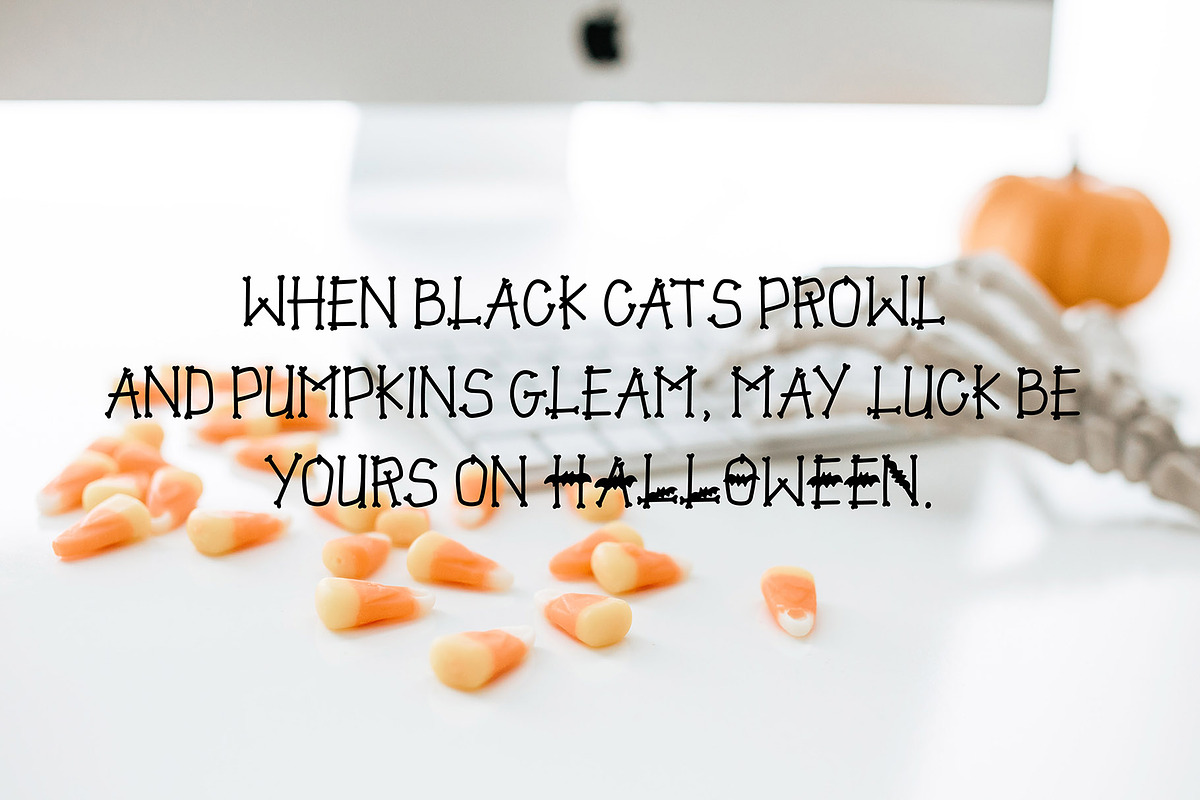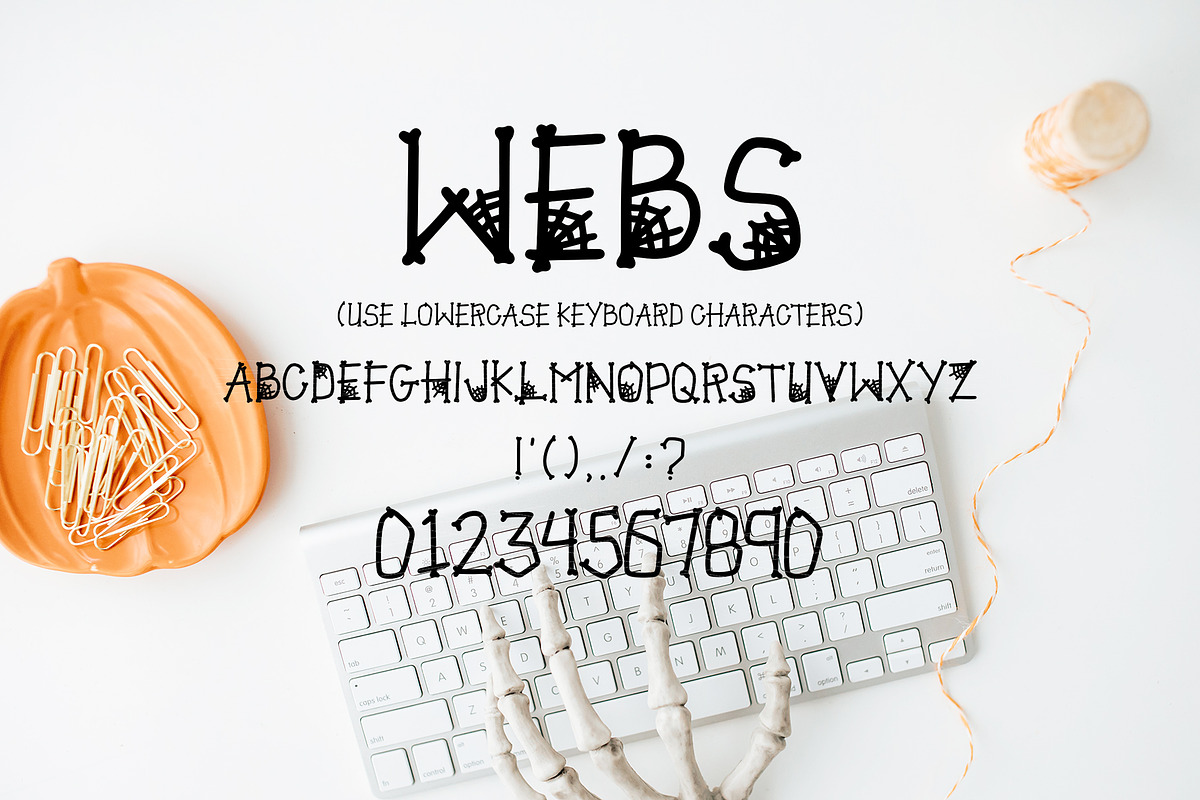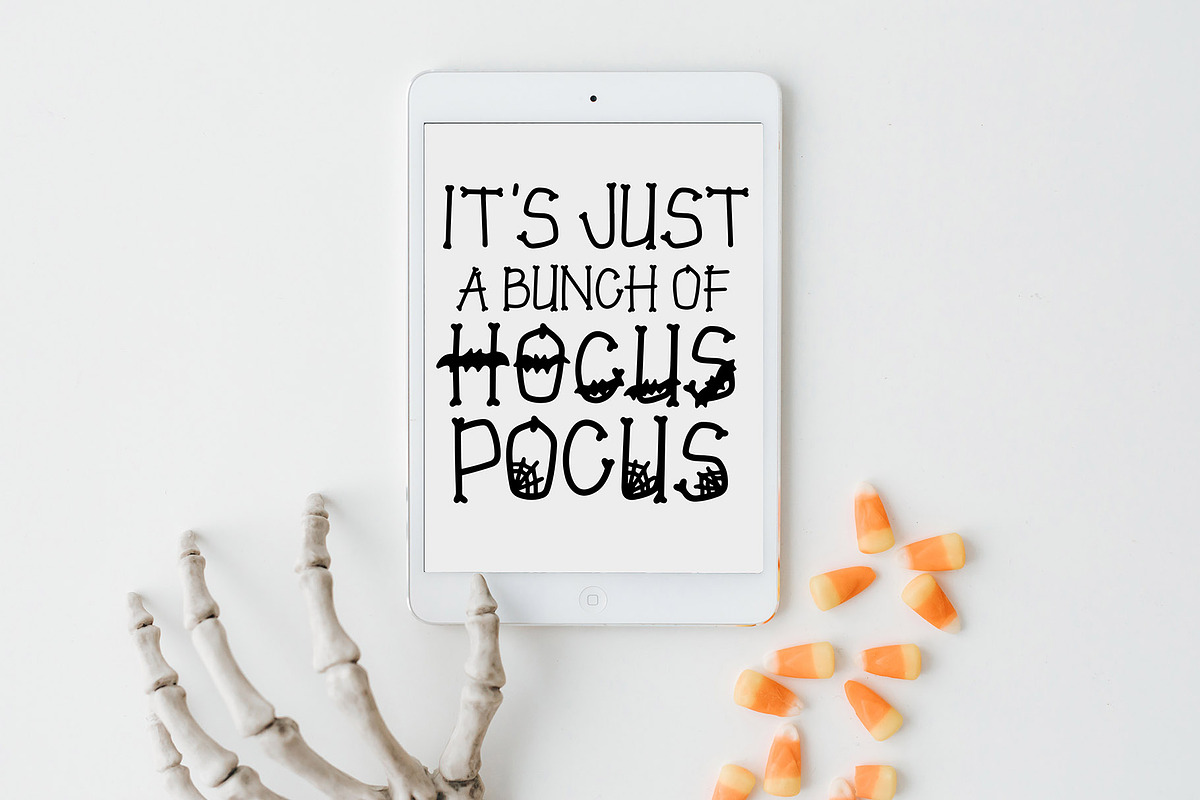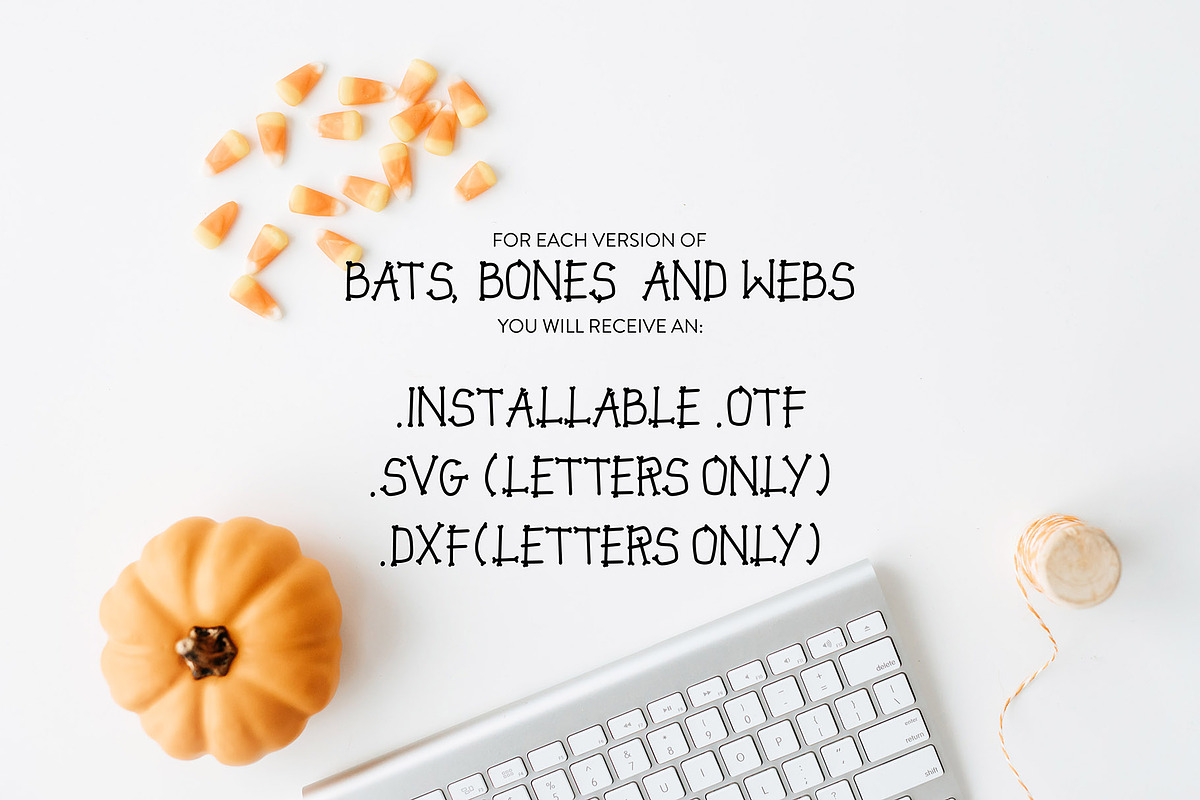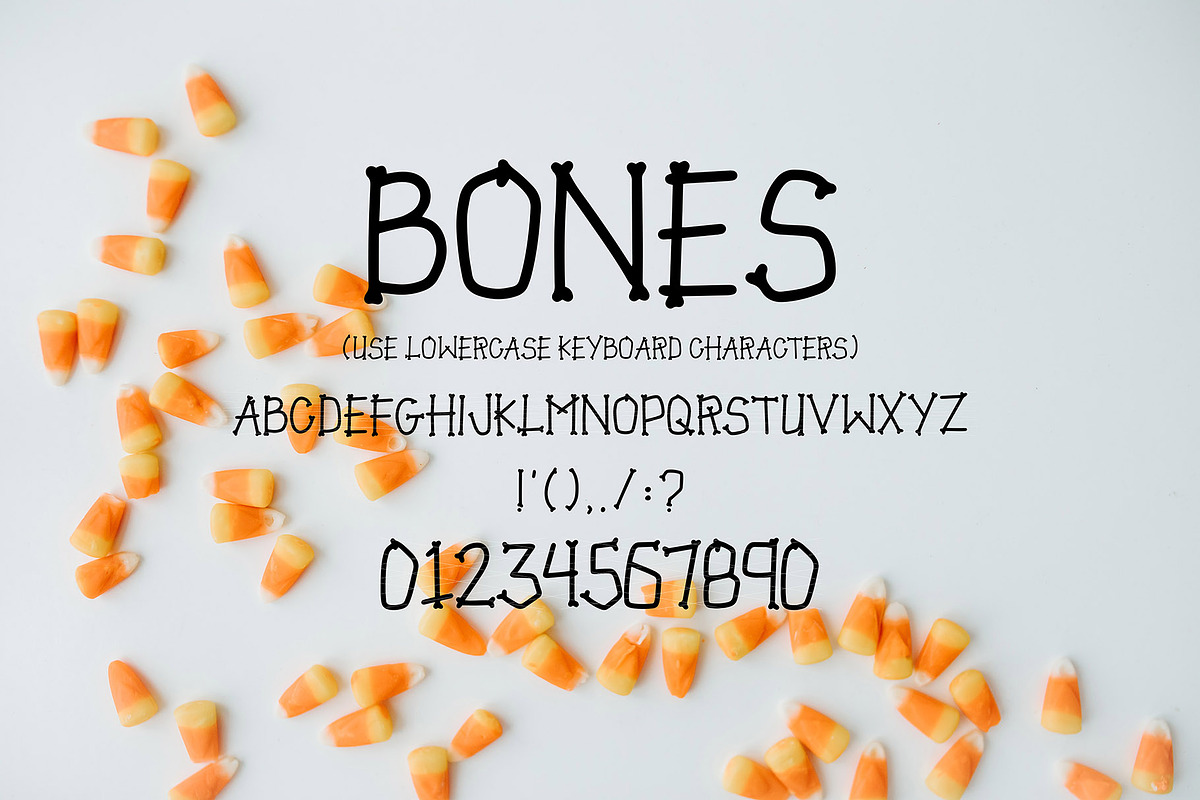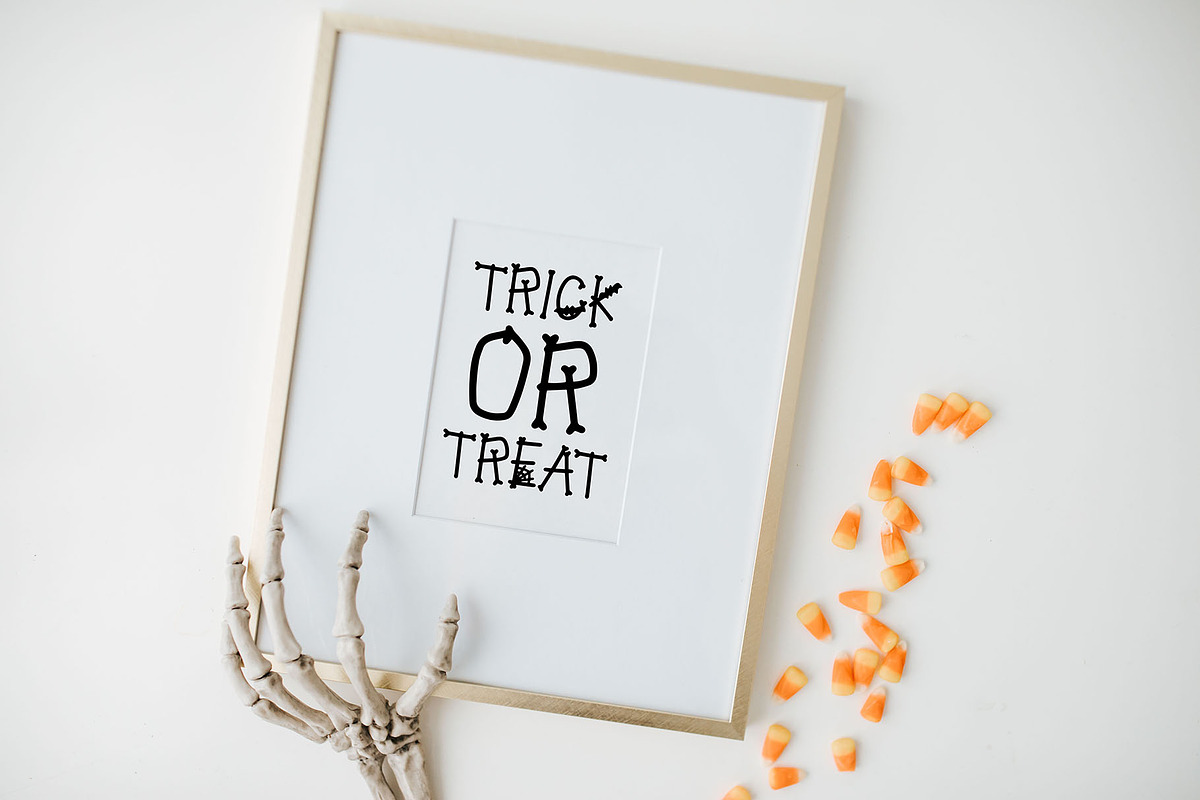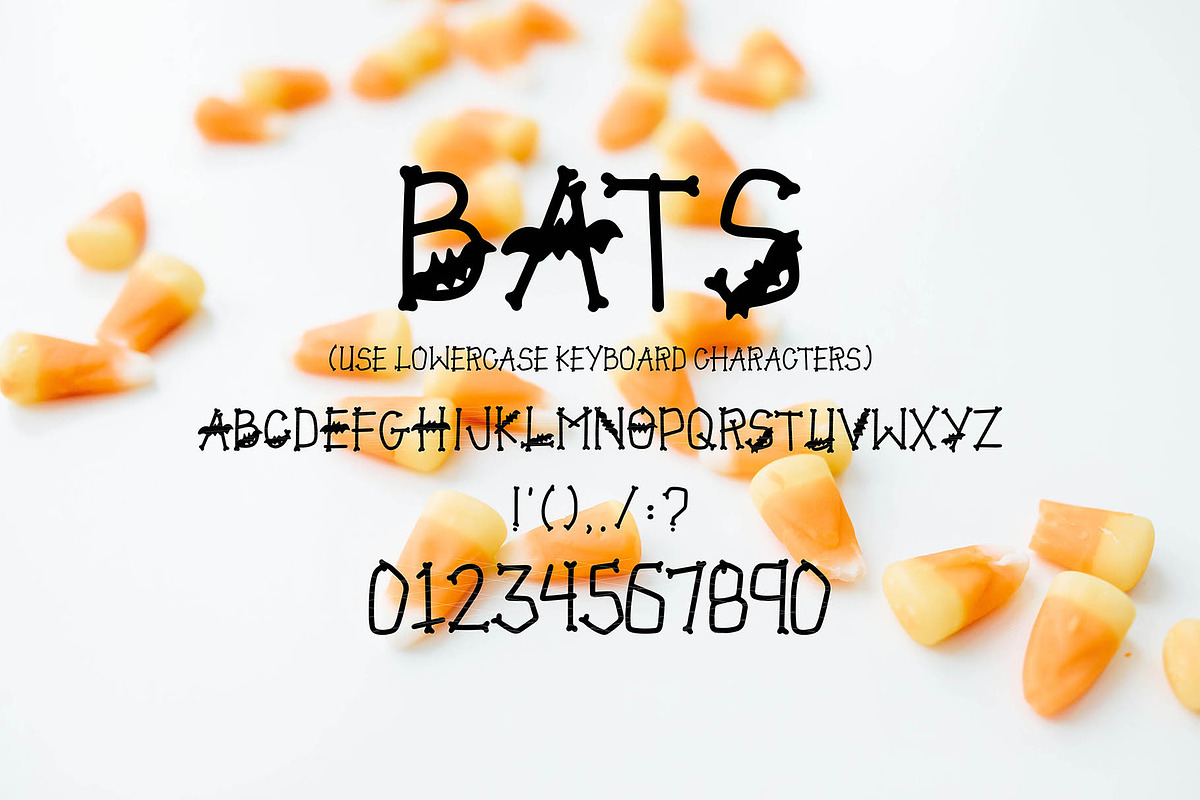
JACK MYERS Halloween Font Family
{ A typographic font hand lettered with love by Dixie Type Co. }
Jack Myers includes three fun coordinating Halloween fonts. Use a single font, or a combination of all 3 to create fun halloween decor and projects! All installable fonts come with numbers and a few basic punctuation marks. Please use lowercase glyphs to type the letters. Tag us on social media using #dixietypeco!
- BONES - WEBS - BATS Jack Myers includes three fun coordinating Halloween fonts.